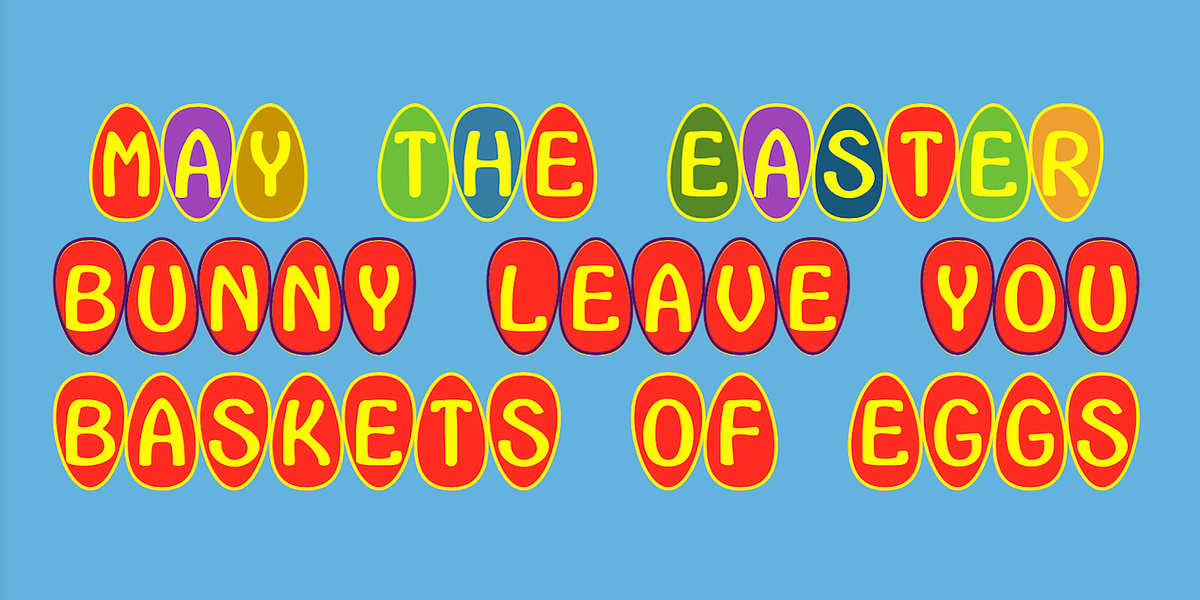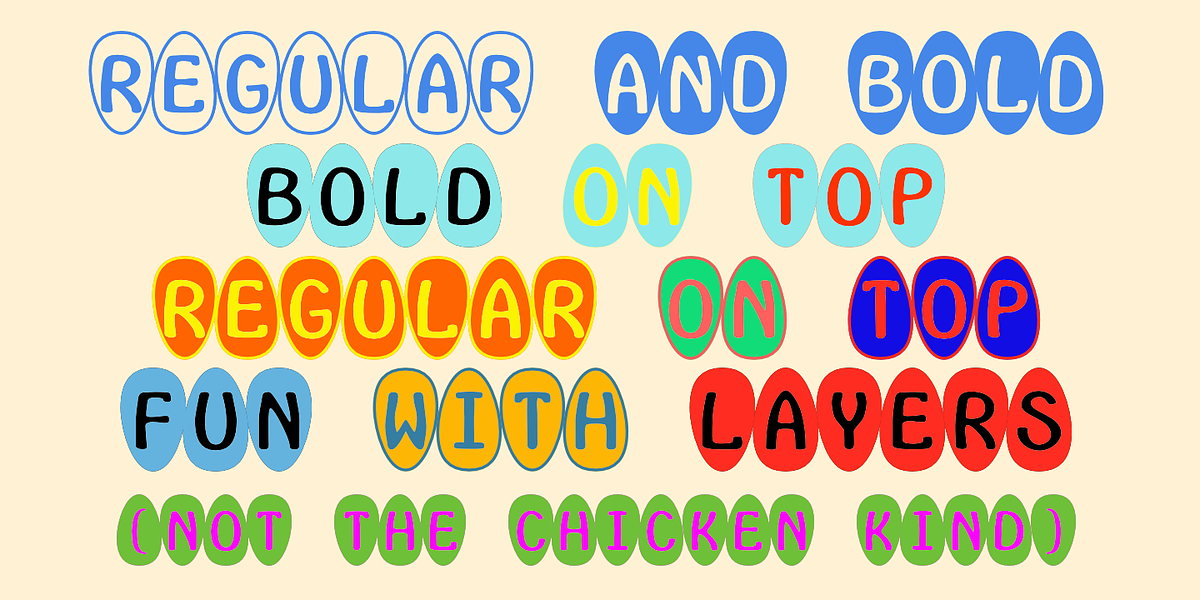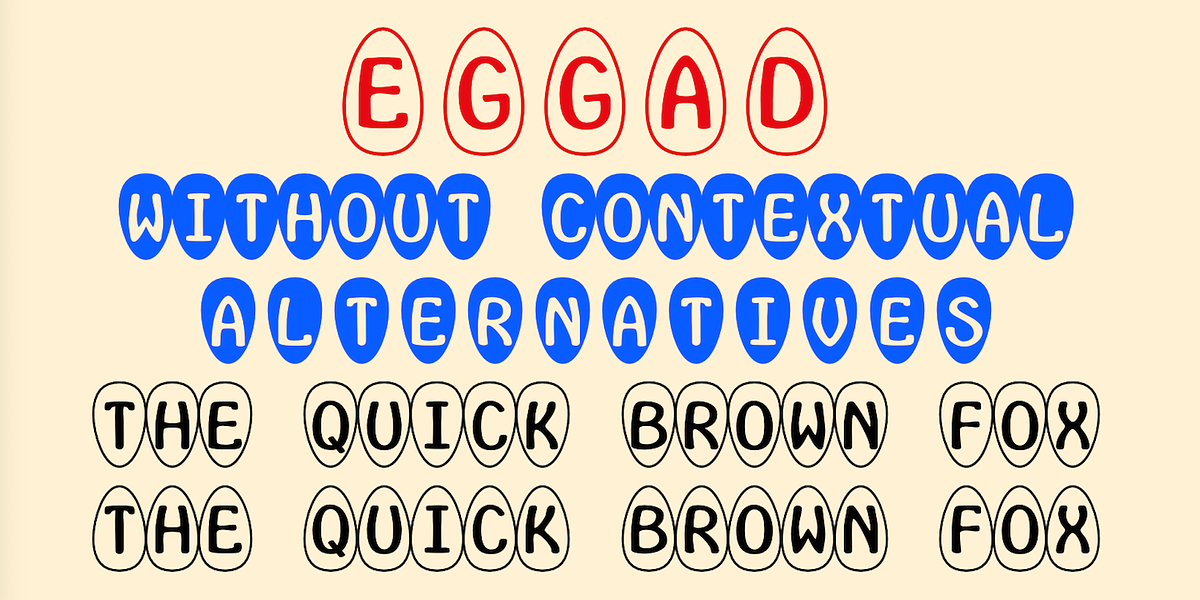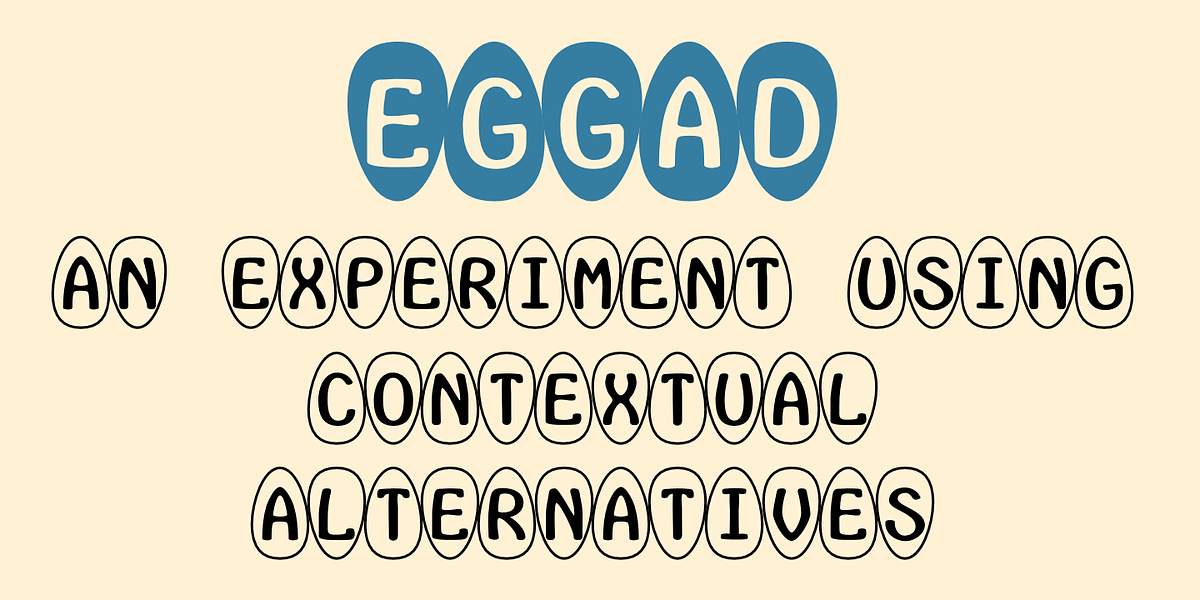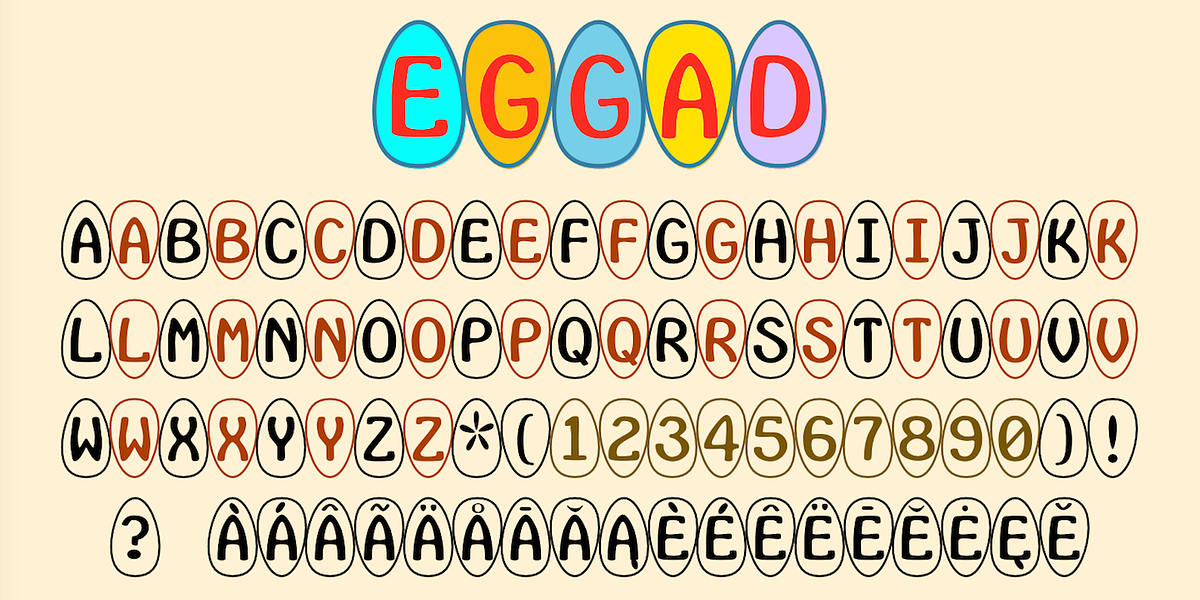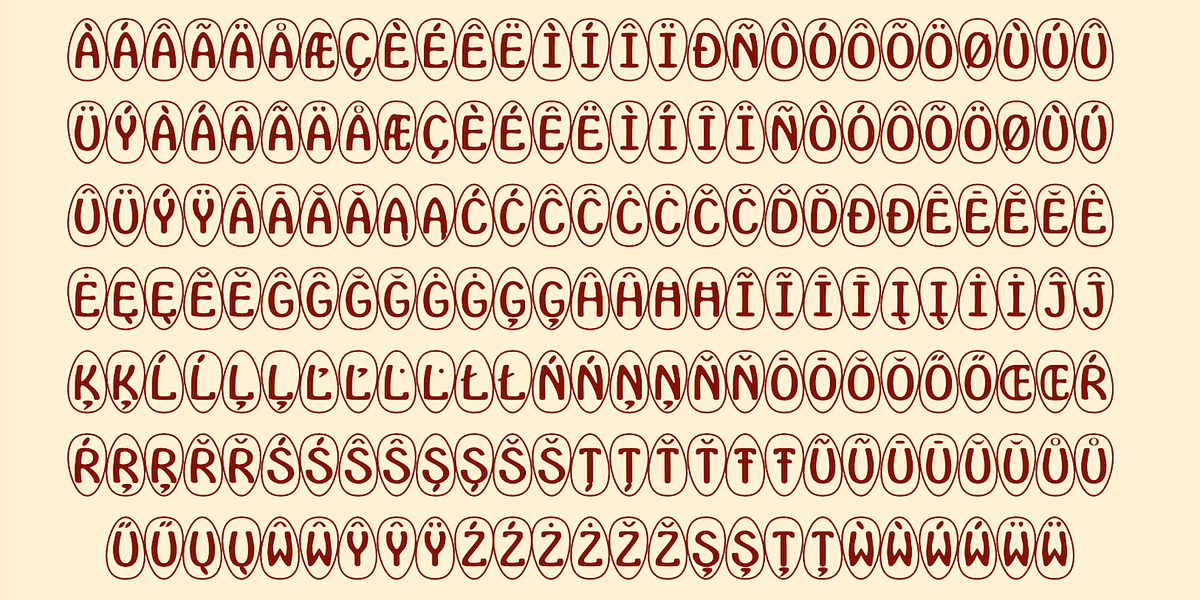
Eggad
Eggad is a novelty dingbat font featuring eggs in both outlined and solid styles. It offers contextual alternates for eggs with large ends pointing up or down, controllable through OpenType settings. The font's monospaced nature allows for easy alignment and layering to add color or accents.